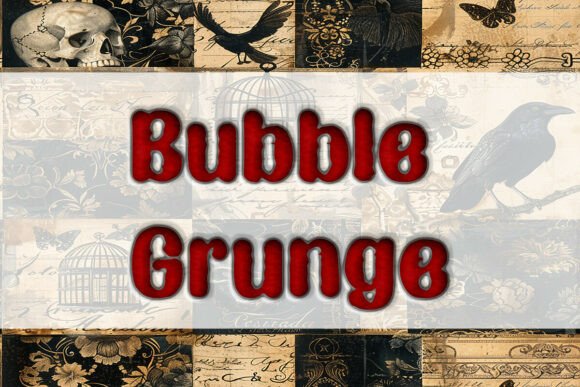
Unleashing Creativity with Bubble Grunge: A Versatile Font for the Modern Designer
I’ll never forget the design project that led me to discover Bubble Grunge. I was working on a quirky sticker design for a client’s craft business, and I was struggling to find the perfect font. The client wanted something edgy yet playful, and I was determined to deliver. That’s when I stumbled upon Bubble Grunge, and it instantly clicked. The unique aesthetic and versatility of this font made it the perfect fit for the project, and I’ve been hooked ever since.
A Personal Review of Bubble Grunge
- ✨ Unique Aesthetic: Bubble Grunge brings a fresh and distinctive look to any design project, making it perfect for those who want to stand out.
- ✅ Versatility: This font seamlessly bridges the gap between edgy and playful, making it suitable for a wide range of projects, from t-shirt graphics to greeting cards.
- 💻 Digital and Print Friendly: Bubble Grunge shines in both digital and print formats, making it an excellent choice for various applications, including SVG files and Cricut projects.
While Bubble Grunge is an exceptional font, there are a few minor quirks to be aware of:
- ⚠️ Legibility at Small Sizes: Like many grunge-style fonts, Bubble Grunge can become less legible at very small sizes. It’s best used at larger sizes or in moderation.
- 🤔 Overuse of Special Features: With a font as feature-rich as Bubble Grunge, it’s easy to get carried away with the various glyphs and stylistic alternates. Be mindful of overusing these features to maintain a cohesive look.
The Story Behind Bubble Grunge
Bubble Grunge was inspired by the nostalgic feel of 90s street art and grunge music. The designer aimed to create a font that captured the essence of this era while making it versatile enough for modern design applications. The result is a unique font that blends edginess with playfulness.
Q: Is Bubble Grunge suitable for body text?
A: While Bubble Grunge is an exceptional font, it’s best used for headlines or short paragraphs. Its unique aesthetic and grunge texture make it more suitable for display text rather than body text.